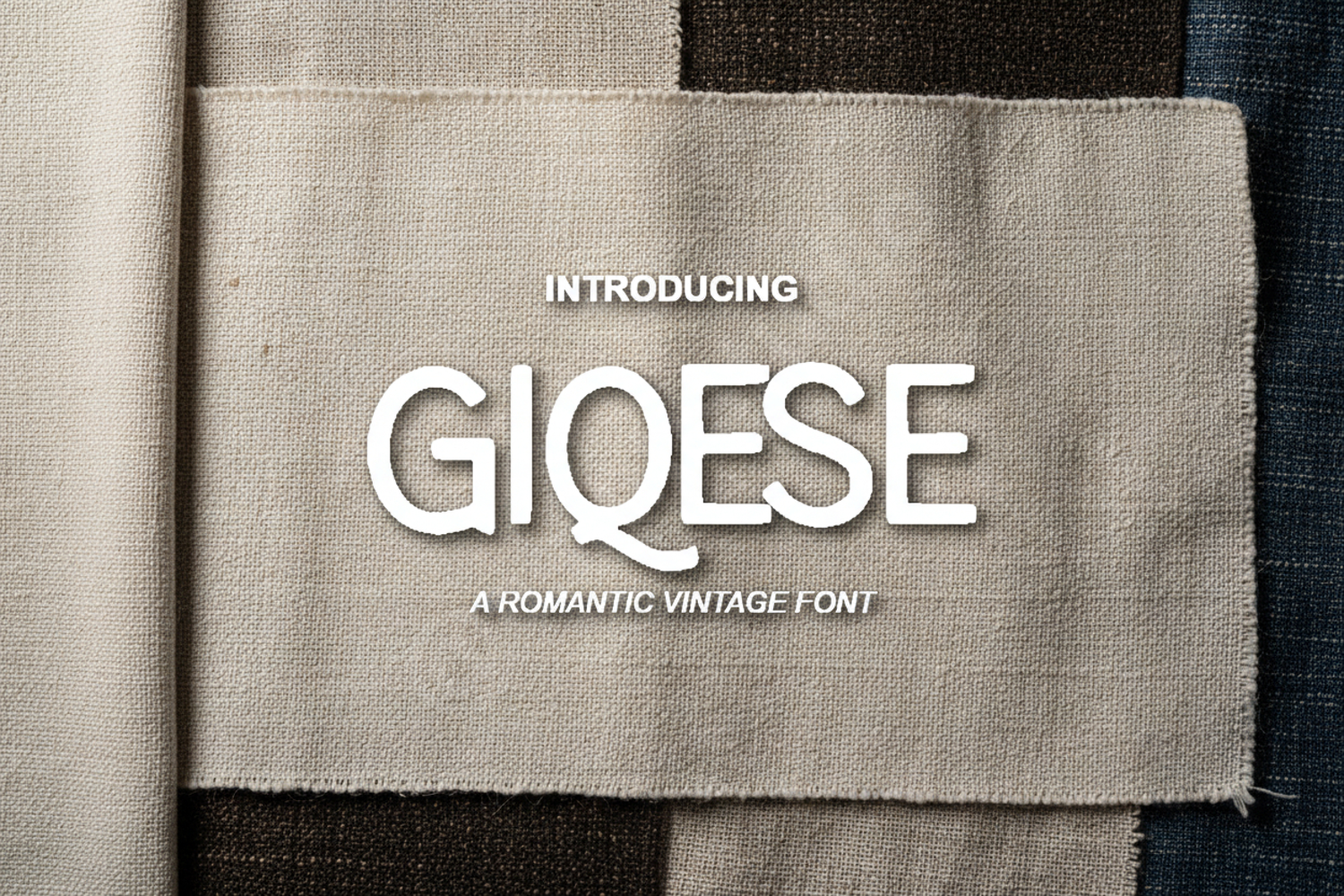
Giqese - Sophisticated Modern Serif Font
Giqese
Giqese is a premium serif typeface meticulously crafted for designers who demand elegance and versatility. This font seamlessly blends timeless classical proportions with contemporary design elements, making it an essential addition to any high-end creative toolkit. Whether you are working on a luxury brand identity or a minimalist editorial layout, Giqese provides the perfect balance of sophistication and readability.
- Full set of standard glyphs and numbers
- Elegant ligatures and alternative characters
- Multilingual support for global accessibility
- High-End Branding and Visual Identity
- Wedding Invitations and Premium Stationery
- Professional Logo Design and Wordmarks
- Editorial Layouts and Magazine Headings
- Social Media Graphics and High-Impact Quotes
- Luxury Product Packaging and Labels